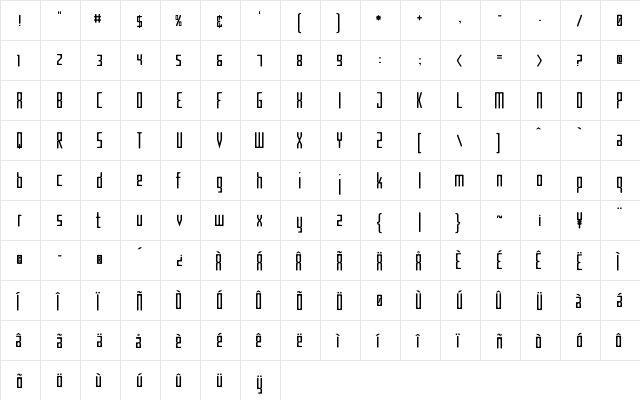
CriminalNarrow Regular
Design Context for CriminalNarrow Typeface
CriminalNarrow is a composed and adaptable typeface that performs quietly and consistently across a wide range of design contexts. Its narrow stance lets it pack a punch even in space-constrained designs.